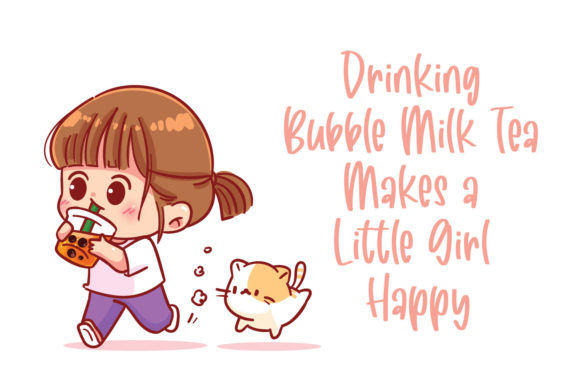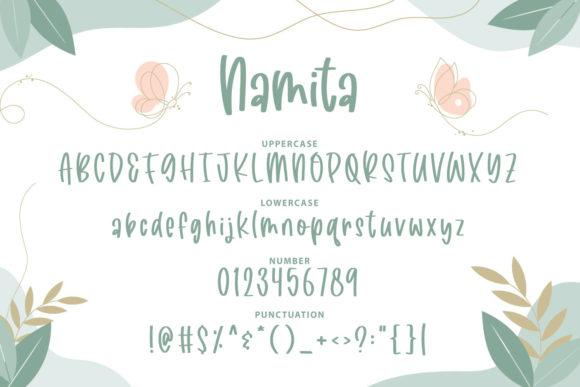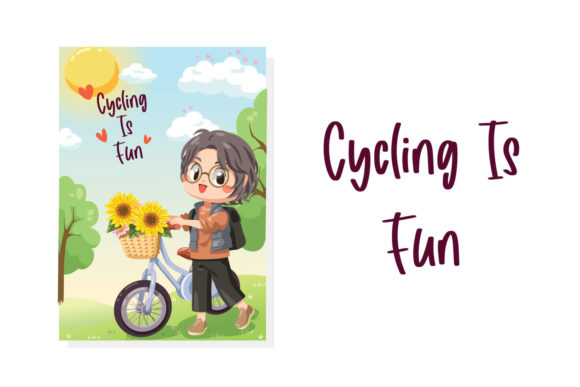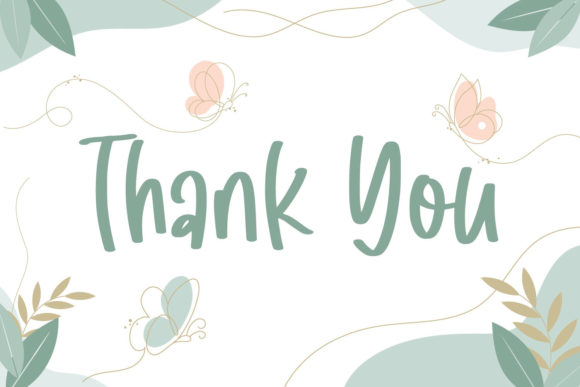
Introduction to Namita Font
Have you ever stumbled upon a design that instantly sparks creativity and sets your imagination ablaze? For designers, it’s those ‘aha’ moments that make all the difference. For me, it was the discovery of the Namita Font – a delightful, quirky handwritten font that has become my go-to for all things whimsical and charming.
With its authentic feel and playful personality, the Namita Font is a design treasure trove waiting to be unleashed. Whether you’re working on a high-quality wedding invitation or a free download for social media, this font is sure to bring a touch of magic to your creative project. Its transparent background and beautiful texture make it a versatile design resource that’s perfect for branding, logos, and even children’s designs.
Key Features of Namita Font
- Features a transparent background, ideal for design projects requiring minimalistic backgrounds
- Designed with a modern aesthetic, making it a valuable design resource for various creative applications
- Includes a wide range of characters, including Latin, Cyrillic, and Greek alphabets
Honest Review: Namita Font
I recently stumbled upon the Namita Font and was eager to test it out for a creative project. The first thing that caught my eye was the free download option, which is a huge bonus for designers on a budget. The high quality of the font is also impressive, making it a great addition to any design resource collection.
One of the standout features of the Namita Font is its transparent background, which allows for seamless integration with any design element. The font’s elegant and sophisticated design makes it perfect for a variety of creative projects, from branding to publishing.
Limitations: ⚠️ Limited font sizes and styles, ⚠️ Not suitable for high-impact or bold designs.
Overall, I’m impressed with the Namita Font and would recommend it to designers looking for a high-quality, free design resource. While it may have some limitations, its elegant design and transparent background make it a great addition to any design collection.
- Perfect for branding, publishing, and other creative projects
The Namita Font is a high-quality font that is perfect for creative projects, such as designing logos, posters, and brochures. Its transparent background makes it easy to use in designs with complex backgrounds. You can also use the Namita Font in your social media graphics, business cards, and other design materials. With its free download and easy installation, the Namita Font is a valuable design resource for any project.
To get the most out of the Namita Font, use it in conjunction with other high-quality design elements, such as images and graphics. Experiment with different font sizes, colors, and styles to create a unique and eye-catching design. You can also use the Namita Font in combination with other fonts to create a visually appealing typography